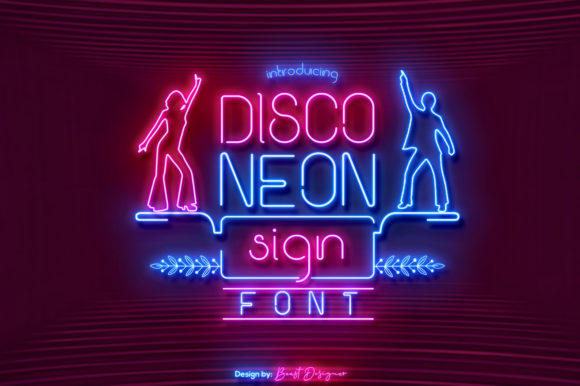
Introducing Disco Neon Sign Font, the ultimate choice for those seeking a captivating and nostalgic touch in their designs. Crafted with precision and care by the talented Beast Designer, this sans serif font is poised to become your go-to font for all your creative endeavors.
With its unique charm and retro vibes, Disco Neon Sign Font is specifically designed to evoke a sense of nostalgia and grab the attention of your audience. Whether you're working on a vintage-inspired poster, a neon sign, or a striking logo, this font will effortlessly transport your viewers back to the glorious days of disco.
Unlock a world of endless possibilities as Disco Neon Sign Font becomes your creative partner. Its sleek and elegant design will add a touch of class to any project, making it the perfect choice for businesses, entrepreneurs, and designers alike. Stand out from the crowd and make a lasting impression with this font's captivating appeal.
But Disco Neon Sign Font is more than just a pretty face. With its extensive range of characters, including uppercase, lowercase, numbers, symbols, and special characters, it offers unrivaled versatility. From eye-catching headlines to stylish body text, this font has got you covered.
When it comes to marketing, Disco Neon Sign Font truly shines. Its keyword-rich nature, with "Best Font For Dollar Sign" as a standout feature, ensures that your content is optimized for search engines, making it easier for potential customers to find you. Boost your e-commerce presence and increase your sales with this font's ability to attract users searching for that perfect font.
Embrace the power of Disco Neon Sign Font and let your creativity soar. Whether you're a seasoned designer or just starting out, this font will inspire you to create visually stunning and emotionally captivating designs. Add a touch of nostalgia, elegance, and excitement to your projects with the click of a button.